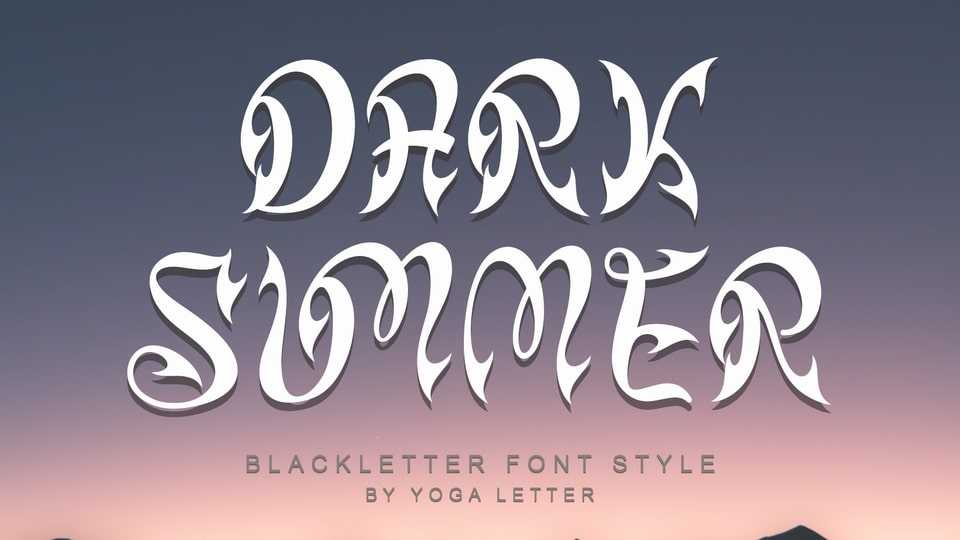
Download Dark Summer font, a unique and elegant blackletter typeface. It is very suitable for use in summer, banners, posters, prints, Halloween, Christmas, father’s day, 4th of July and others.